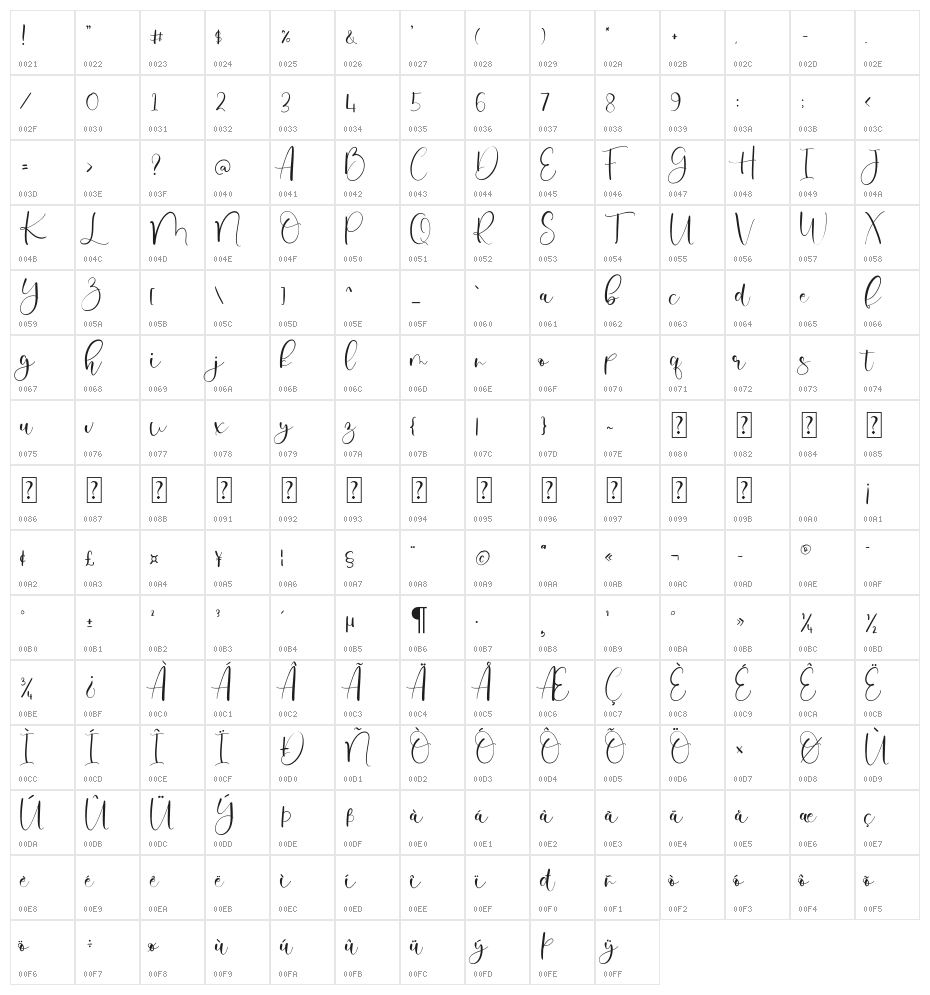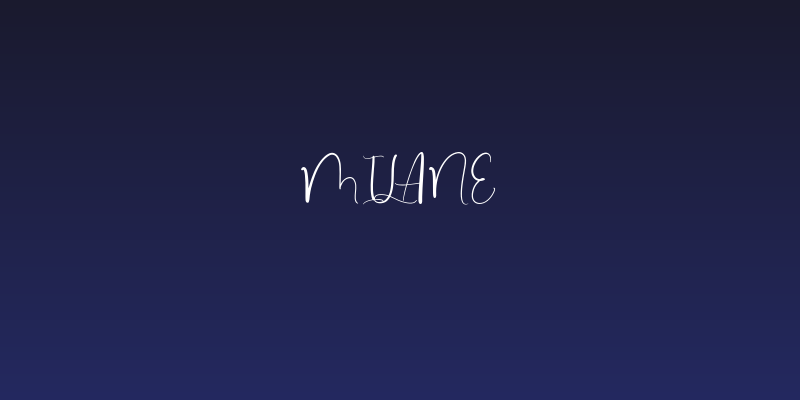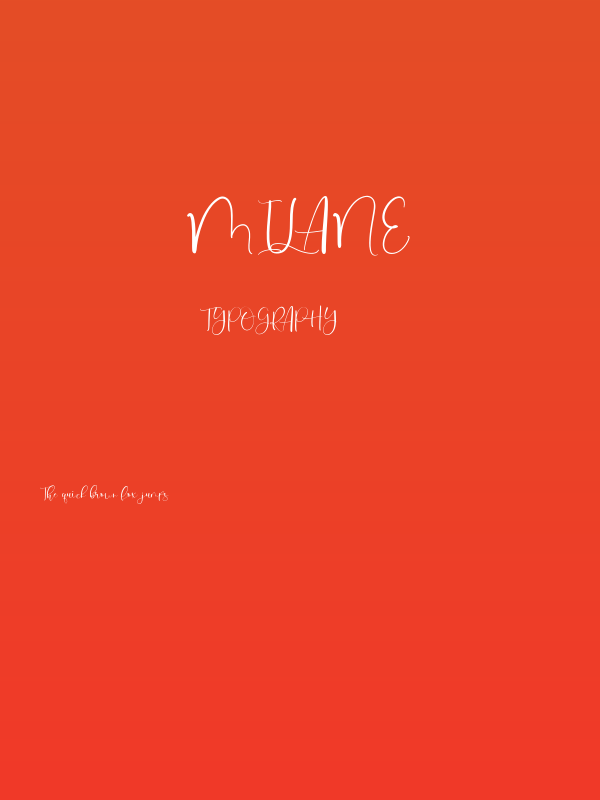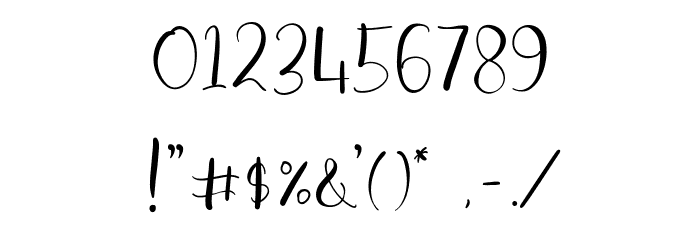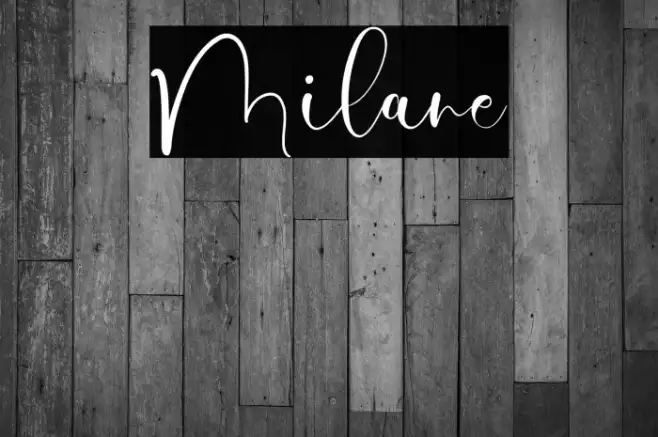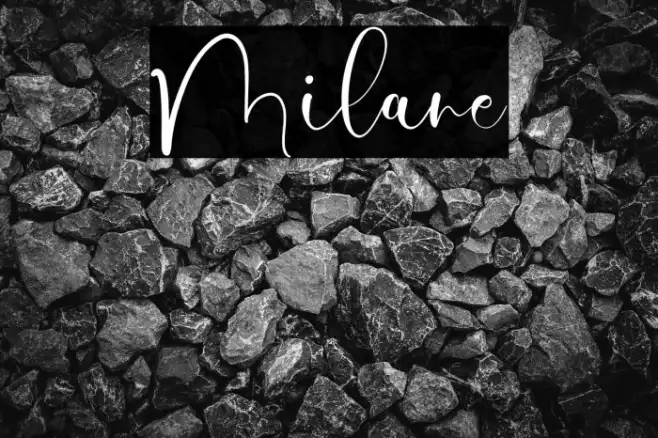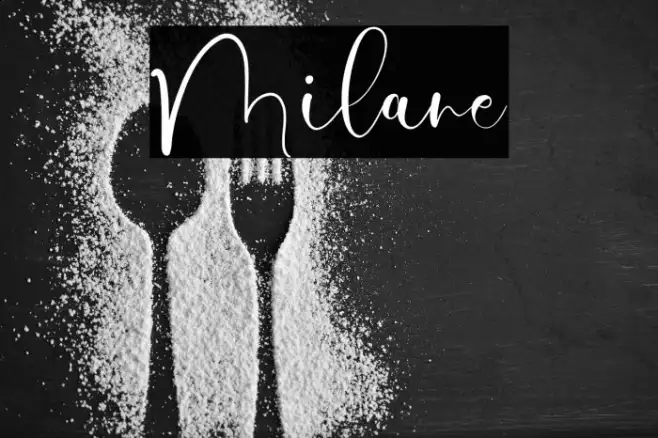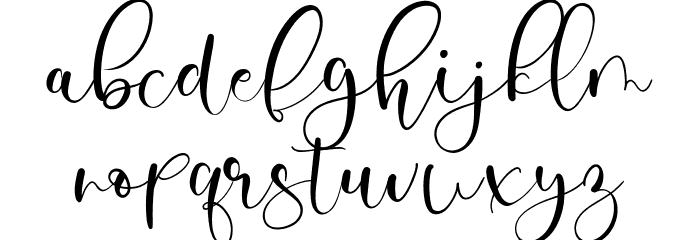
Milane Font
Milane Description
This font features an elegant and flowing script style, characterized by its smooth, cursive strokes and graceful loops. The uppercase letters are tall and slender, with a consistent slant that adds a sense of movement and fluidity. The lowercase letters maintain a harmonious balance, with some characters extending below the baseline, enhancing its decorative appeal. The numerals are designed to complement the script style, with a slight slant and rounded forms. Special characters are seamlessly integrated, maintaining the overall aesthetic. This font exudes a sense of sophistication and charm, making it ideal for projects that require a touch of elegance.